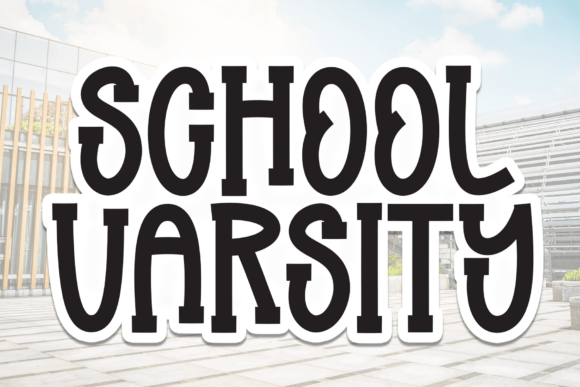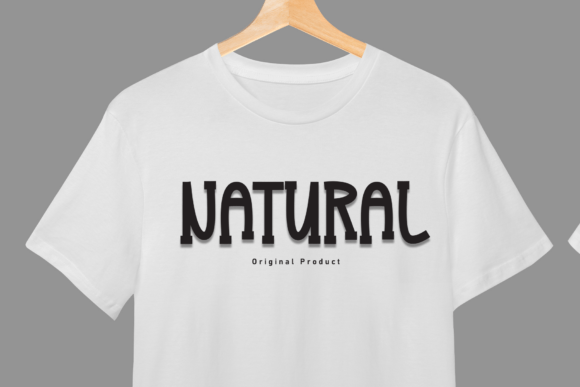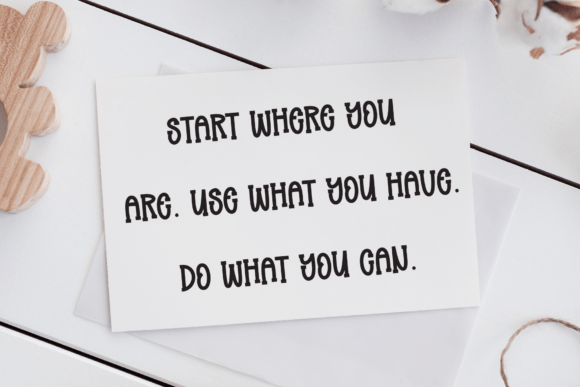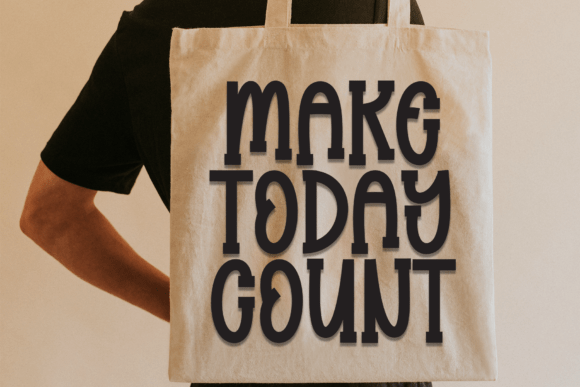
School Varsity Font
About the School Varsity Font
Get ready to be inspired by School Varsity Font, a fresh and dynamic typeface for modern creators. School Varsity is a playful and versatile display font with a tall, rounded letter style that adds a cheerful and modern touch to any design. Its clean yet fun appearance makes it perfect for branding, posters, packaging, social media graphics, and more. Whether used for headings or creative projects, this font brings a sense of charm and approachability to your text.
School Varsity Font Usage Examples
School Varsity Font Example